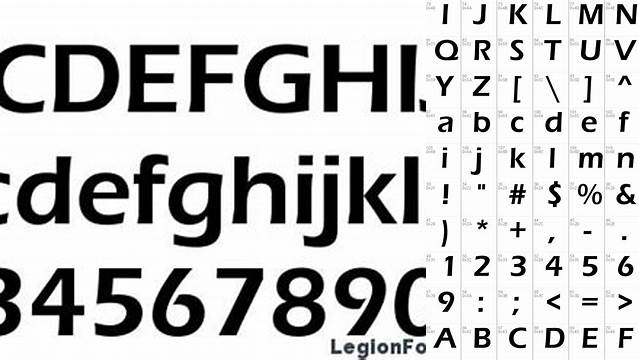
Are you looking to enhance your design projects with a distinctive and elegant typeface? Look no further! The Eras Demi ITC font is a popular choice among designers and creatives for its versatility and modern appeal. This comprehensive guide will delve into the intricacies of the Eras Demi ITC font, explore its characteristics, discuss its applications, and, most importantly, guide you on how to find free downloads safely and legally.
Understanding the Eras Demi ITC Font
Let's kick things off by understanding what makes the Eras Demi ITC font so special. This font, part of the Eras family, is known for its clean lines and contemporary feel. It's a sans-serif typeface, meaning it lacks the small decorative strokes (serifs) that you often see in fonts like Times New Roman. This gives it a more modern and minimalist appearance, making it suitable for a wide range of design applications. The 'Demi' in its name indicates a semi-bold weight, providing a good balance between readability and visual impact.
One of the key characteristics of Eras Demi ITC is its excellent legibility. The letterforms are well-defined, and the spacing is carefully considered, ensuring that text remains easy to read even at smaller sizes. This makes it a great choice for body text in brochures, websites, and other print and digital materials. Furthermore, its clean and modern aesthetic makes it a fantastic option for headlines, logos, and branding materials. The font exudes a sense of professionalism and sophistication, which can elevate the overall look and feel of your designs.
Moreover, the Eras Demi ITC font offers a wide range of glyphs and characters, including uppercase and lowercase letters, numbers, punctuation marks, and various symbols. This versatility allows you to use it in different languages and for different types of content. Whether you're designing a website in English, creating a brochure in Spanish, or developing a logo with unique symbols, Eras Demi ITC has you covered. Its adaptability makes it a valuable asset in any designer's toolkit. It is truly a very flexible and widely useful font option for nearly any project one undertakes.
Applications of Eras Demi ITC Font
The Eras Demi ITC font finds its application across various design domains, thanks to its versatility and aesthetic appeal. In the realm of web design, it is often used for headings, subheadings, and body text, providing a clean and modern look that enhances the user experience. Its excellent legibility ensures that website visitors can easily read and understand the content, while its contemporary style adds a touch of sophistication. Many websites also incorporate it within their logo for a clean and modern brand image.
In the world of print design, Eras Demi ITC is a popular choice for brochures, posters, and magazines. Its semi-bold weight makes it stand out on the page, while its clean lines and well-defined letterforms ensure readability. Designers often use it for headlines and captions to draw the reader's attention and convey important information effectively. Its use in print materials helps to create a cohesive and professional brand image.
Furthermore, the Eras Demi ITC font is frequently used in branding and logo design. Its modern and minimalist aesthetic makes it ideal for creating logos that are both memorable and timeless. Many companies choose Eras Demi ITC for their logos because it conveys a sense of professionalism, reliability, and innovation. Its versatility also allows it to be used in a wide range of industries, from technology to finance to fashion. Logos developed with this font are widely recognizable and help establish a consistent brand identity.
Beyond these applications, Eras Demi ITC can also be used in presentations, reports, and other types of documents. Its clean and professional look makes it suitable for conveying information in a clear and concise manner. Whether you're creating a PowerPoint presentation for a business meeting or writing a report for school, Eras Demi ITC can help you communicate your message effectively. Overall, the font is an excellent choice for designers and creatives who want to create visually appealing and easy-to-read content.
The Eras Demi ITC font is a versatile and modern typeface that can enhance your design projects. Its clean lines, excellent legibility, and wide range of applications make it a popular choice among designers and creatives. While finding free downloads of the font can be challenging, it's essential to prioritize safety and legality by sticking to reputable sources and reviewing the terms of use carefully. If you're unable to find a free download or if you're looking for similar alternatives, there are several other fonts that you can consider, such as Helvetica, Arial, Futura, Open Sans, and Roboto. By following the guidelines in this comprehensive guide, you can make informed decisions about using the Eras Demi ITC font and elevate the quality of your designs.